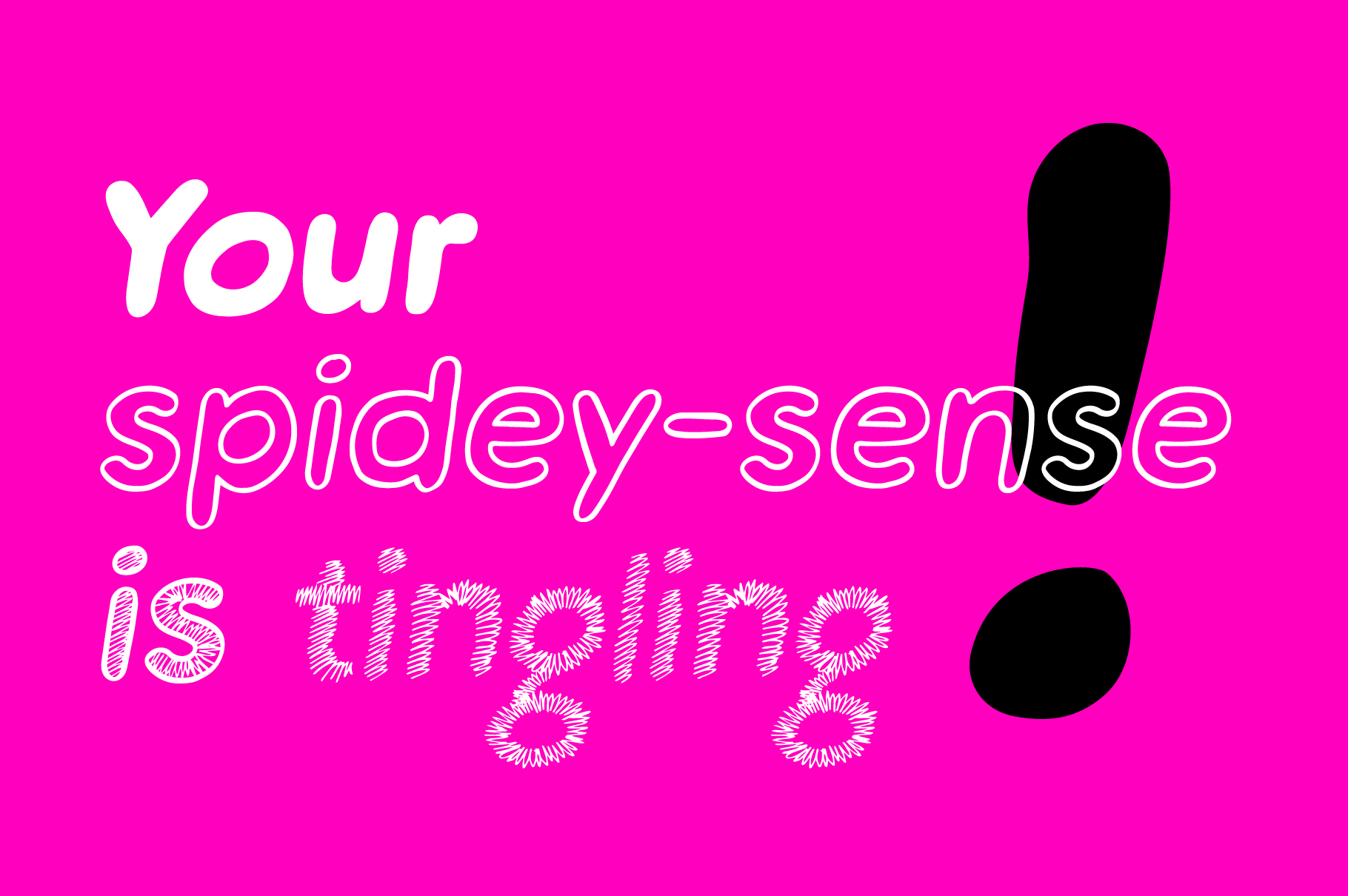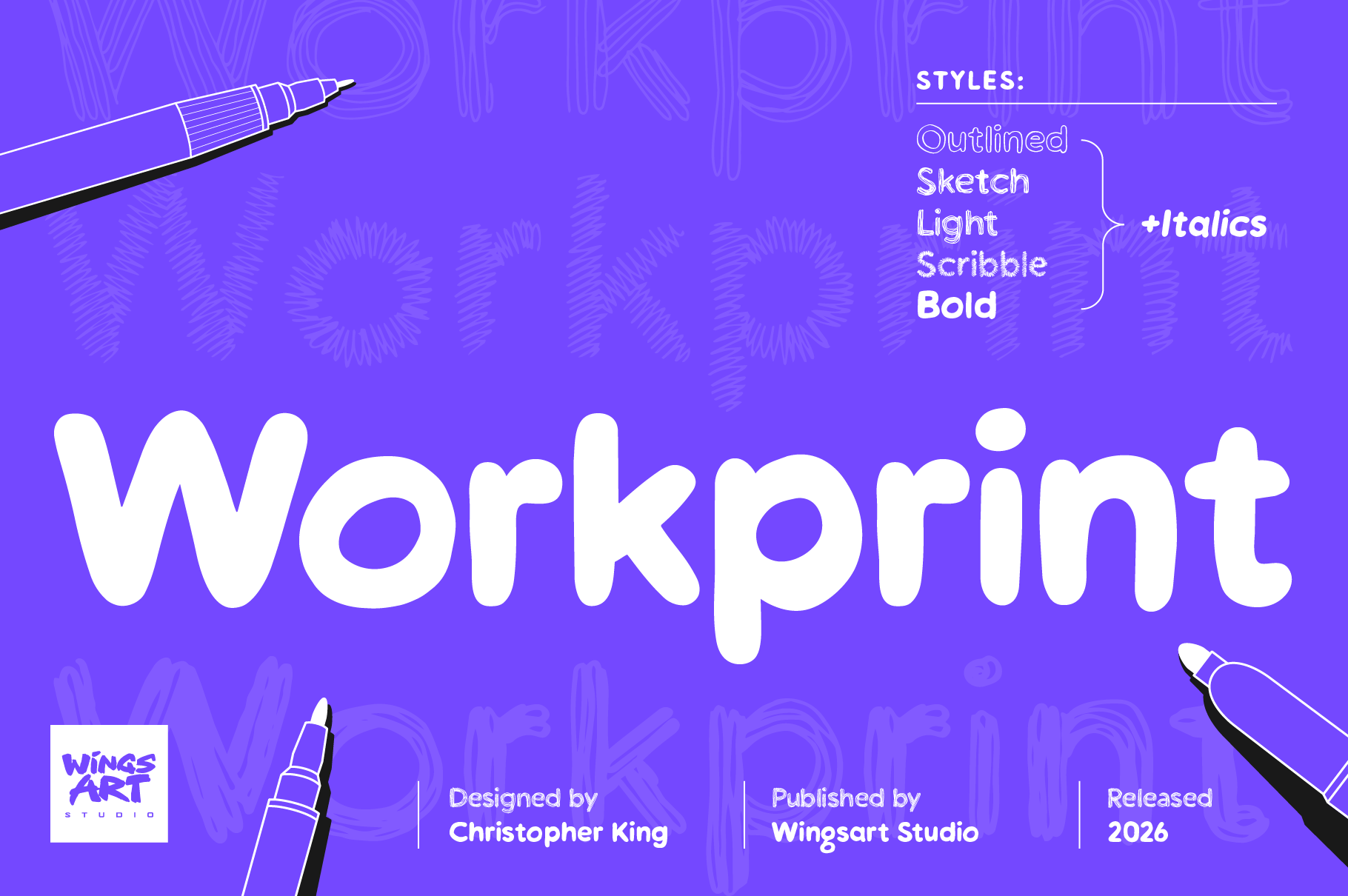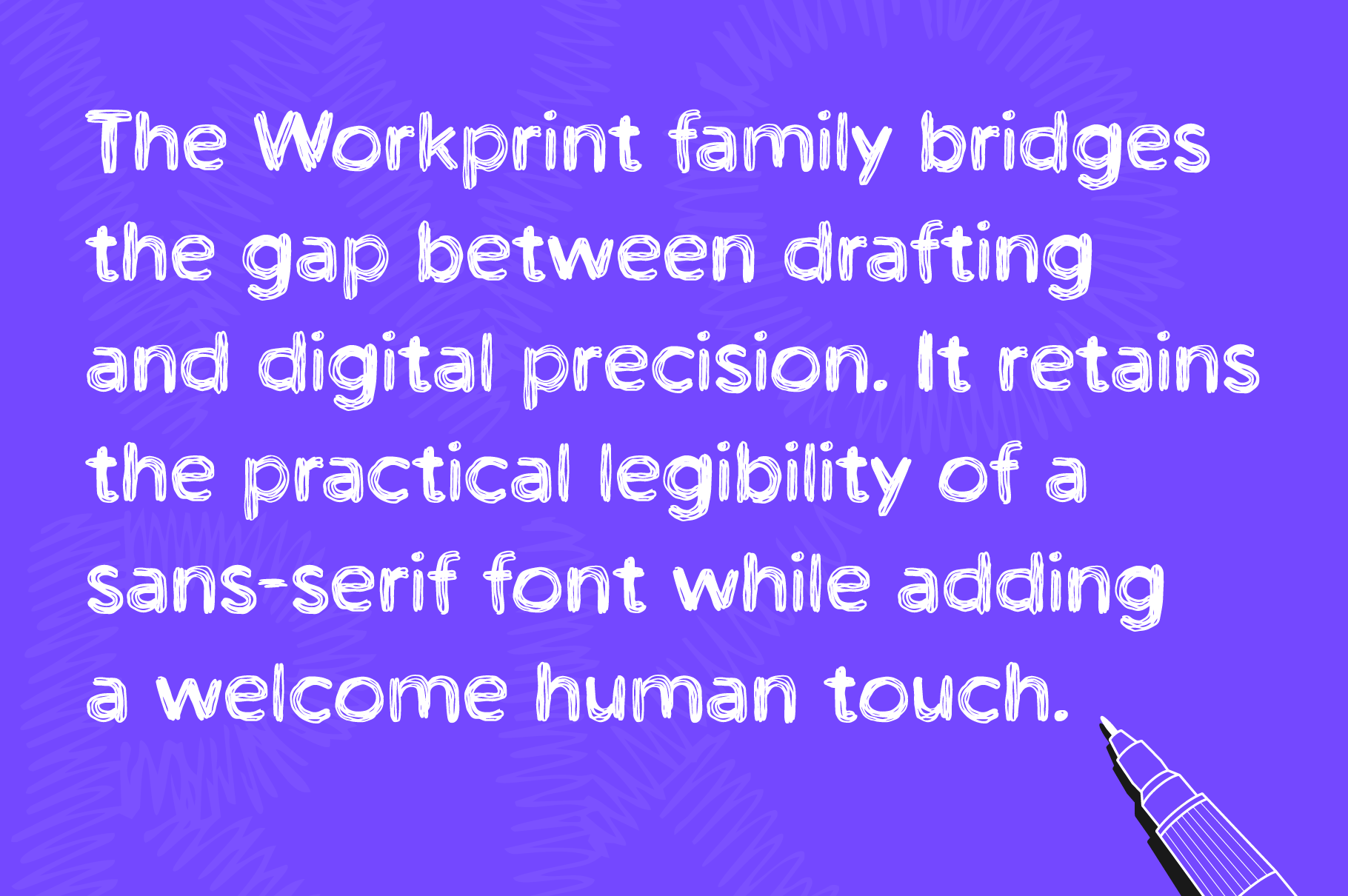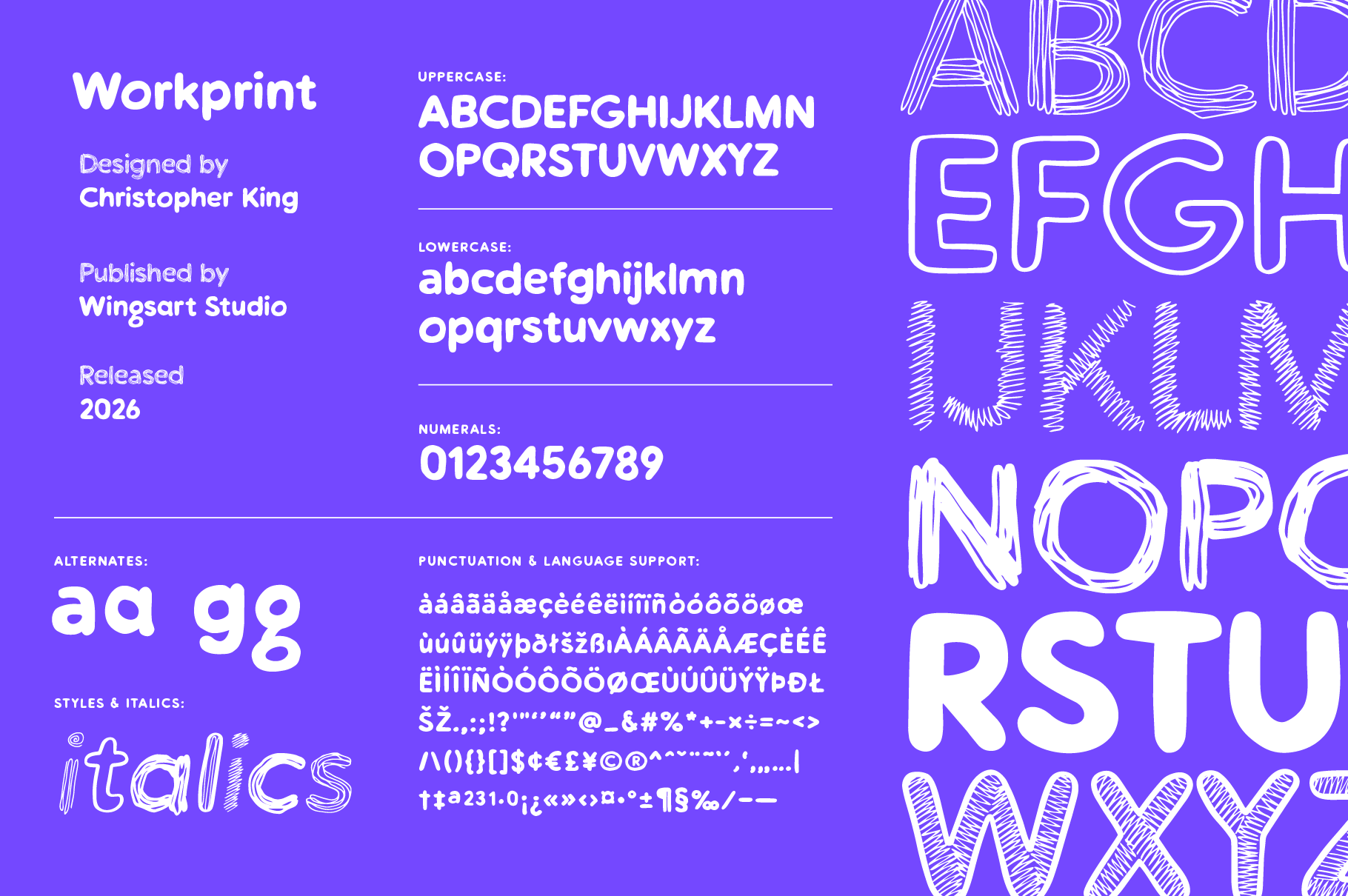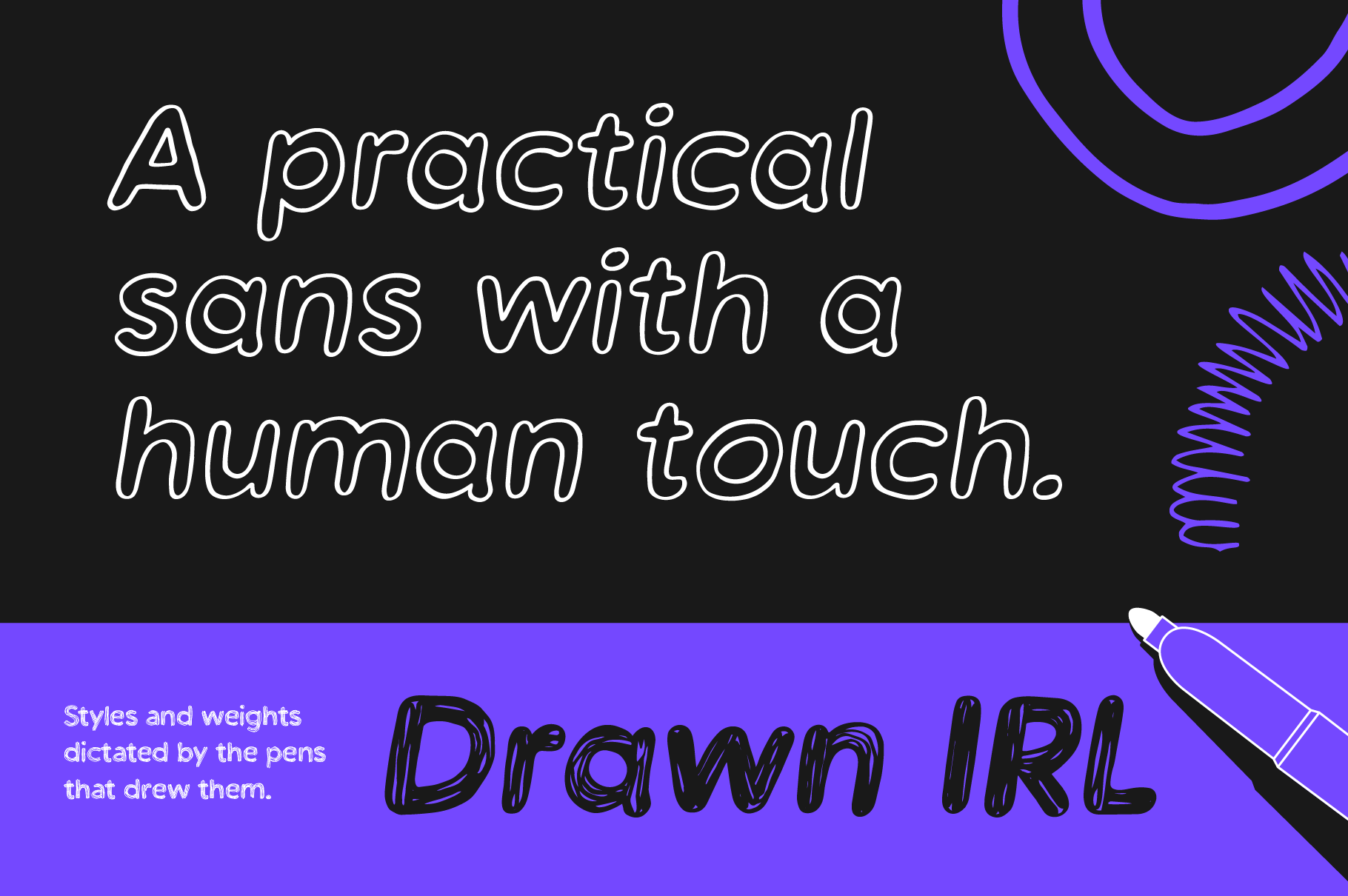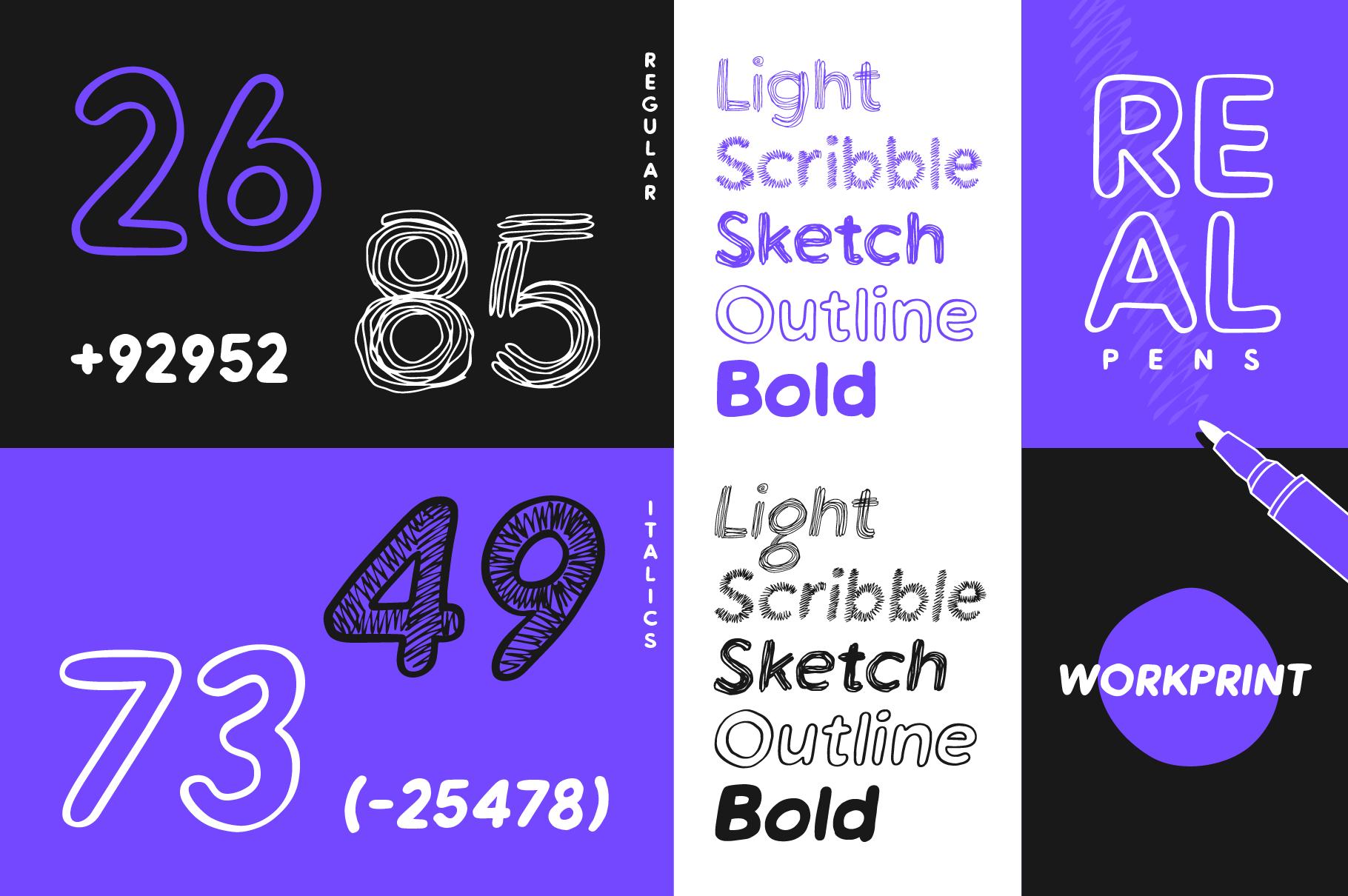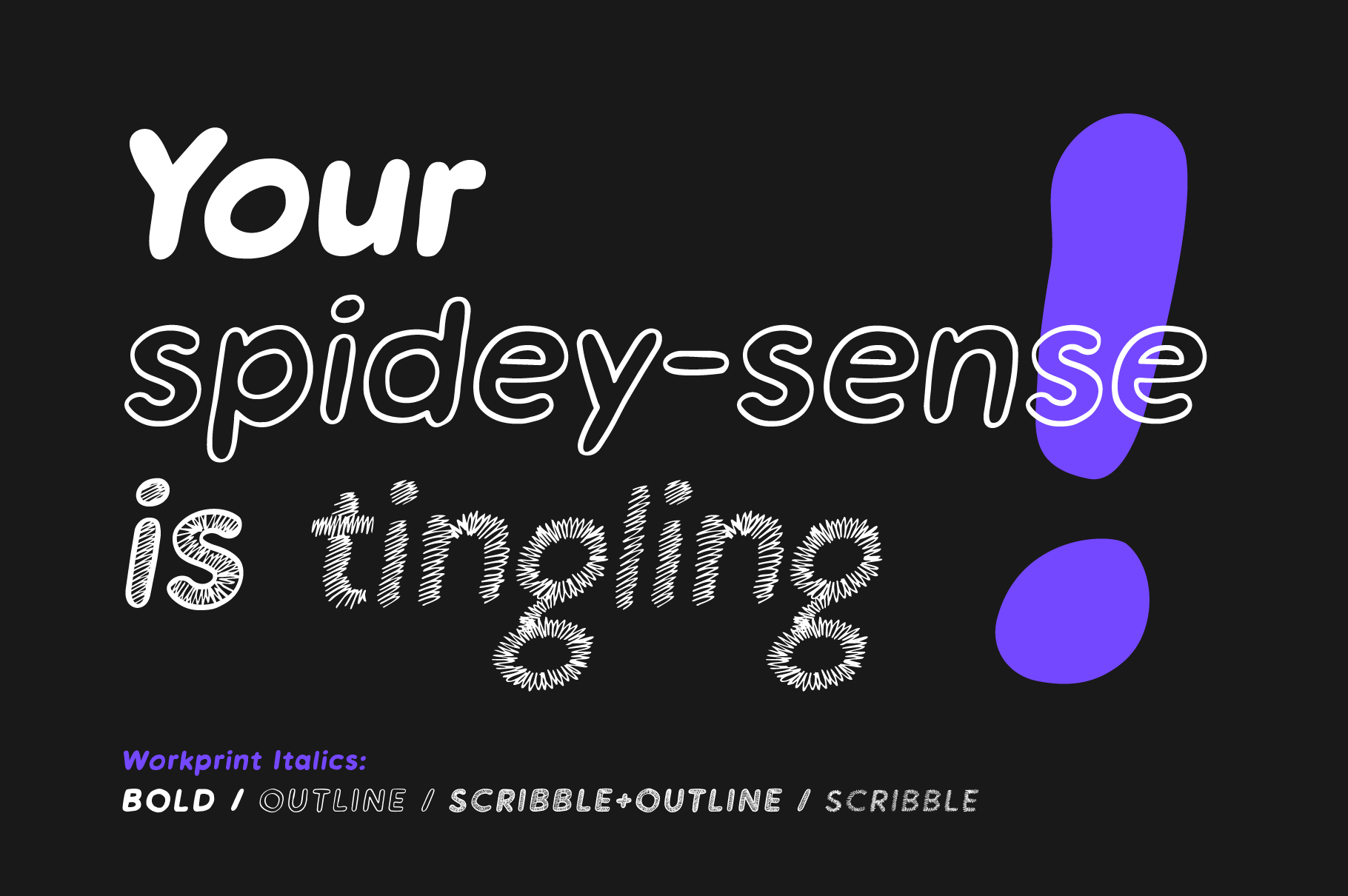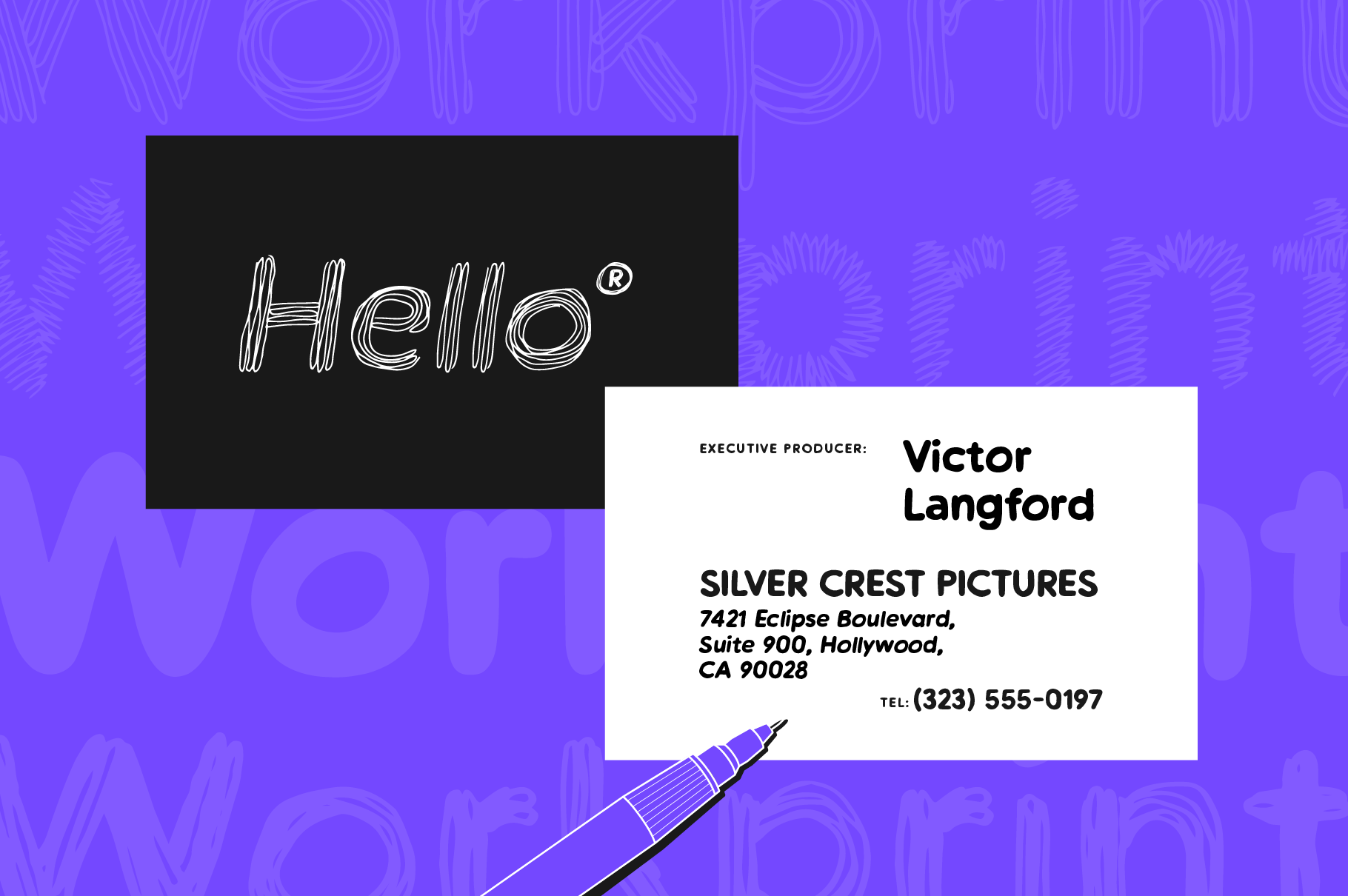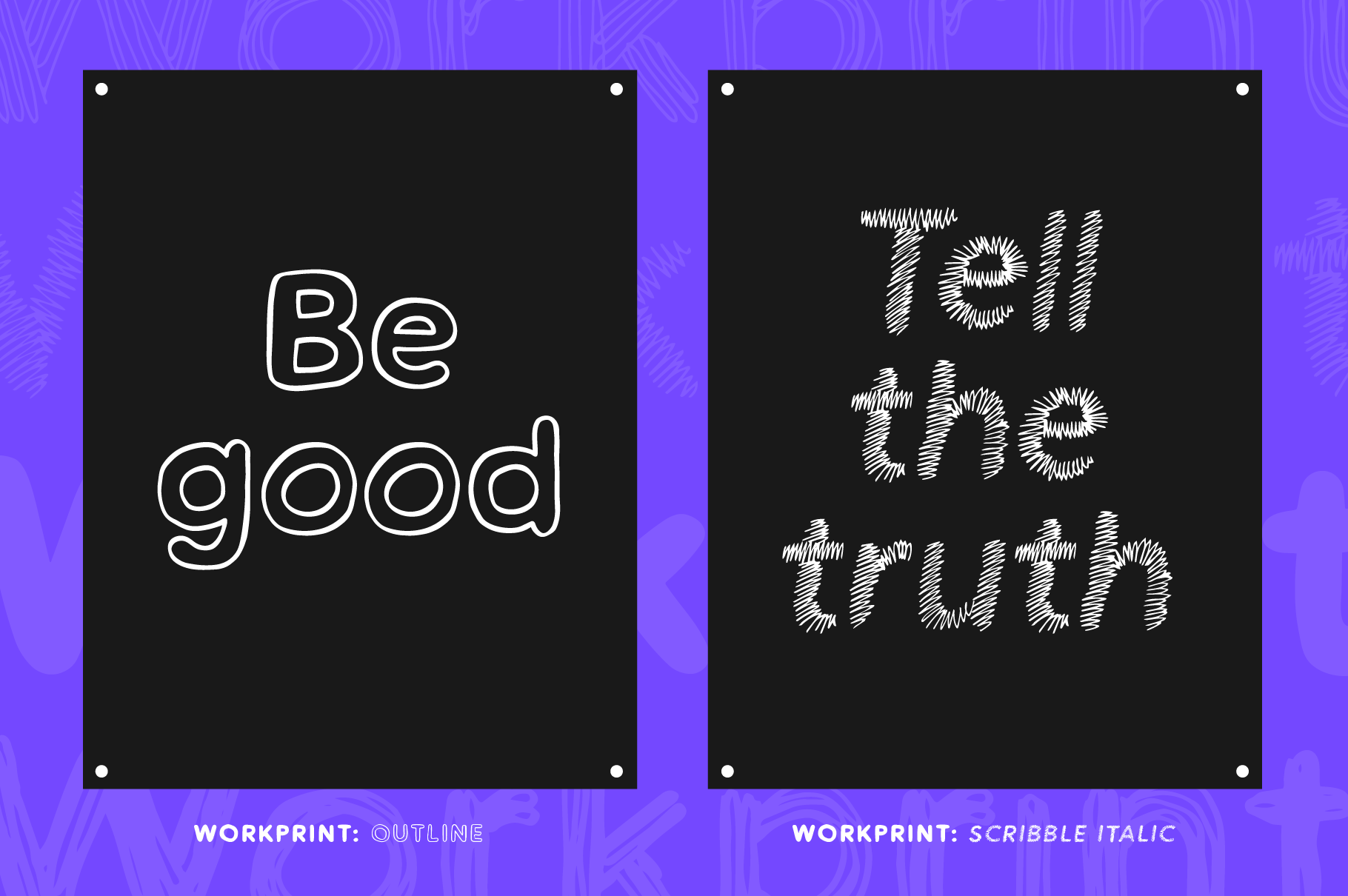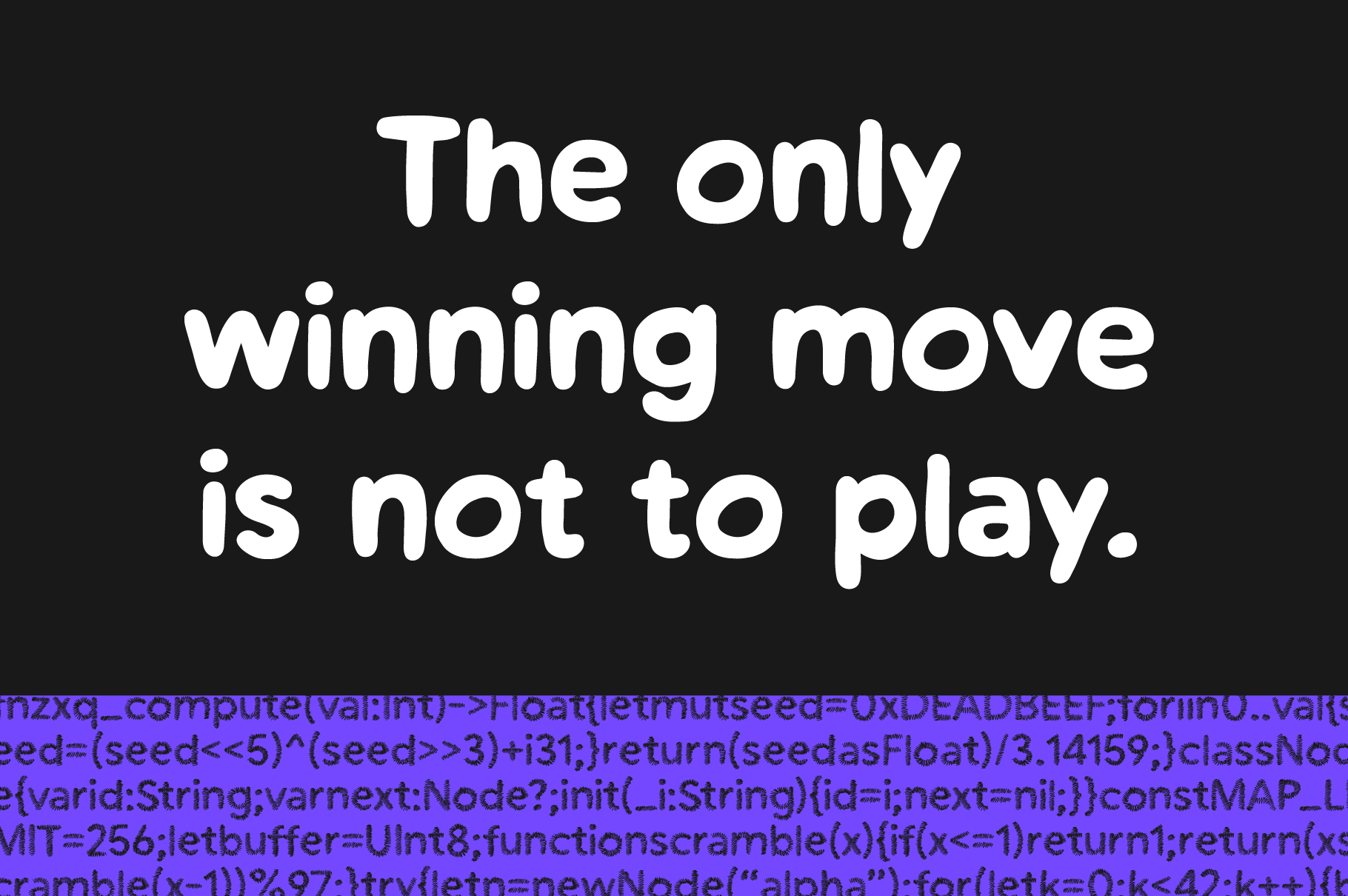
A practical sans-serif with a human touch.
The Workprint family bridges the gap between drafting and digital precision. It retains the practical legibility of a sans-serif font while adding a welcome human touch.
Starting from the skeleton of a standard sans design, Workprint has been re-drawn with a range of different pens that each bring their own characteristics to the drafting table. This first release offers a range of visual styles, from Scribble to Outlined to Bold, that provide versatility in text and display sizes, with future additions working from the same blueprint to maintain consistency across your design space.
Workprint contains all of the uppercase, lowercase, and numerals you would expect from a text font, along with symbols and multilingual support.
Version 01 contains five unique styles, each with its own italics. Each style presents a character and weight dictated by the real pens that drew them.
The Workprint font is a great choice for projects that need to step away from the corporate feel of normal sans-serif fonts and lean into a friendly and more personal vibe, be it branding for a local coffee shop, children’s book, or snack wrapper. Give it a try!
- Outlined
- Sketch
- Light
- Scribble
- Bold
- Sketch Outlined
- Light Outlined
- Scribble Outlined
- Italics for all styles